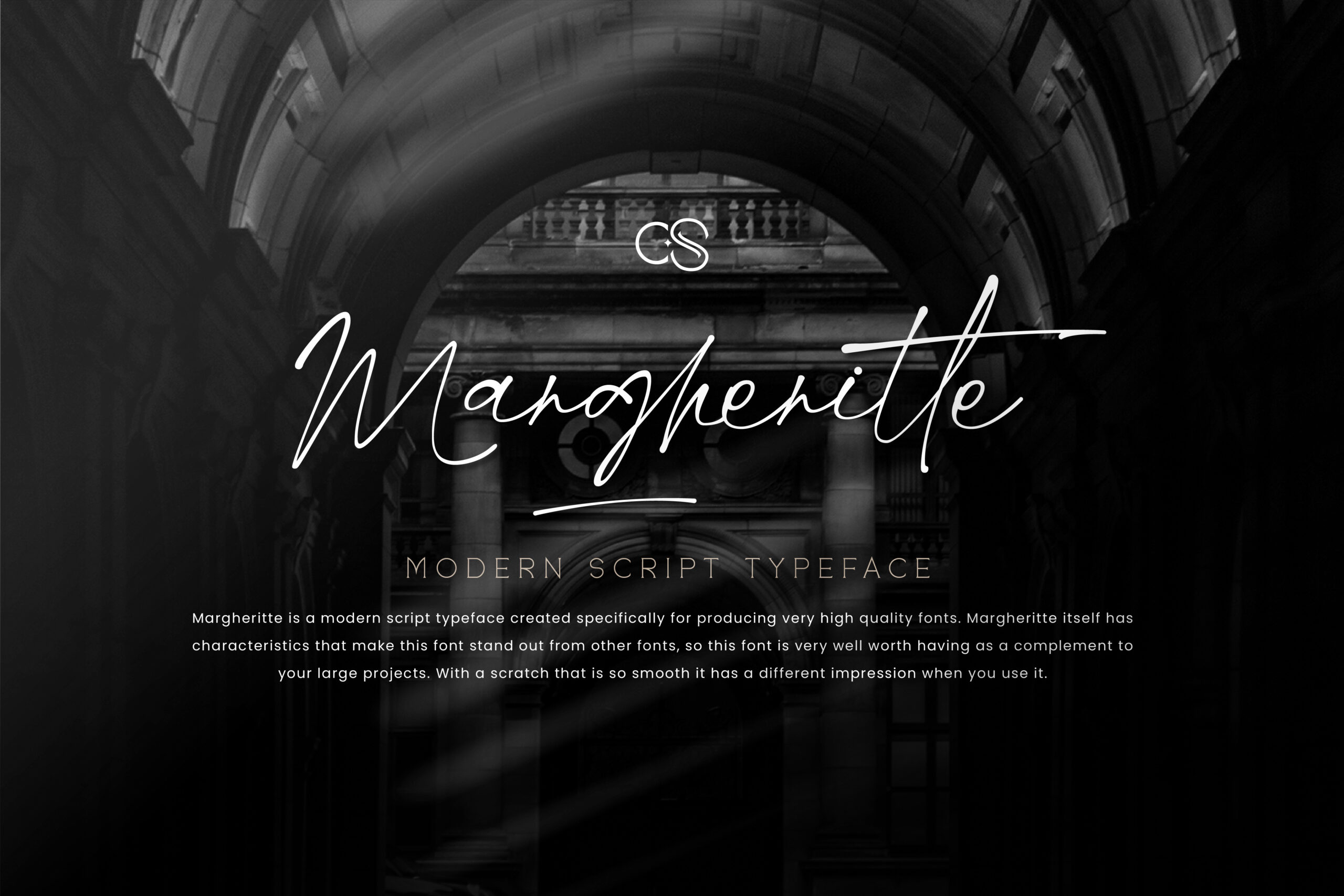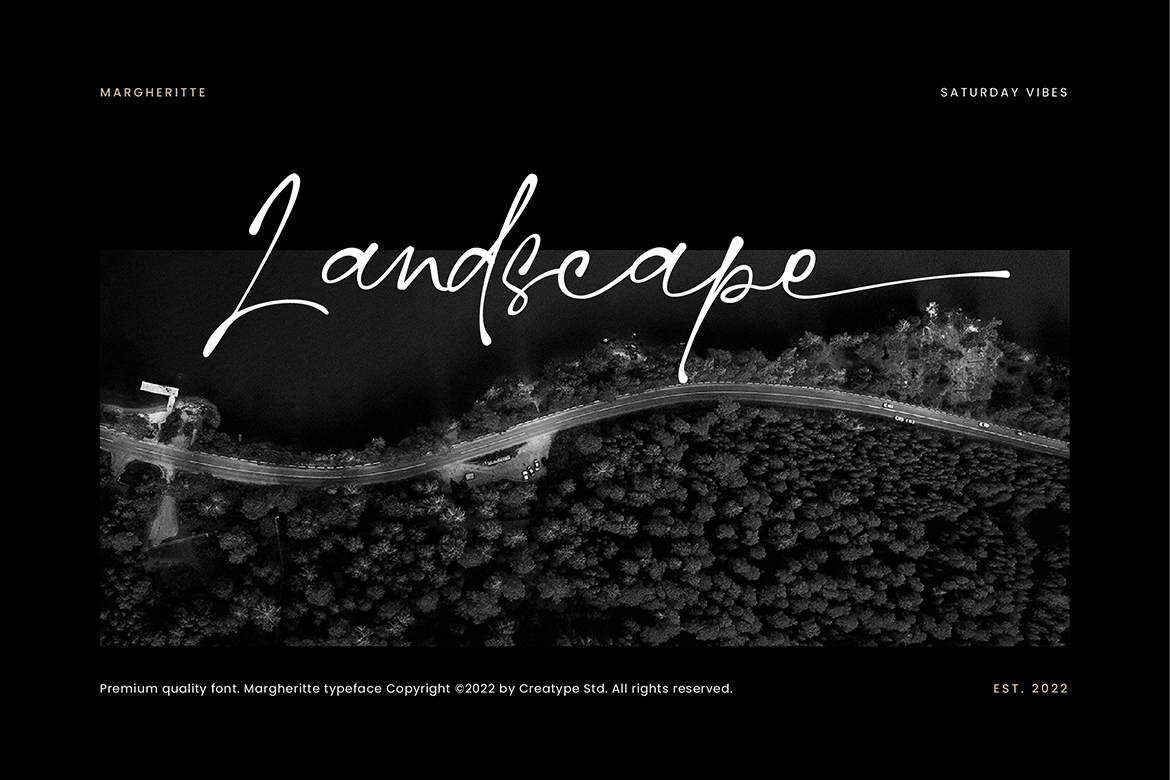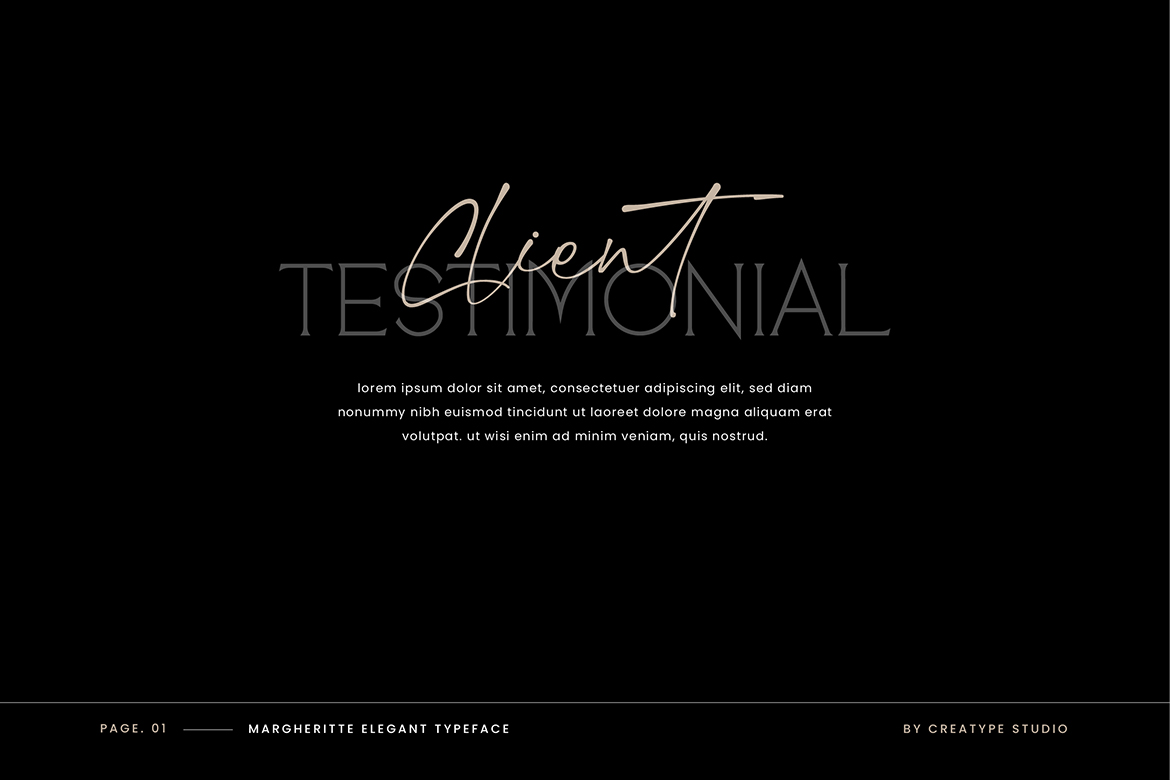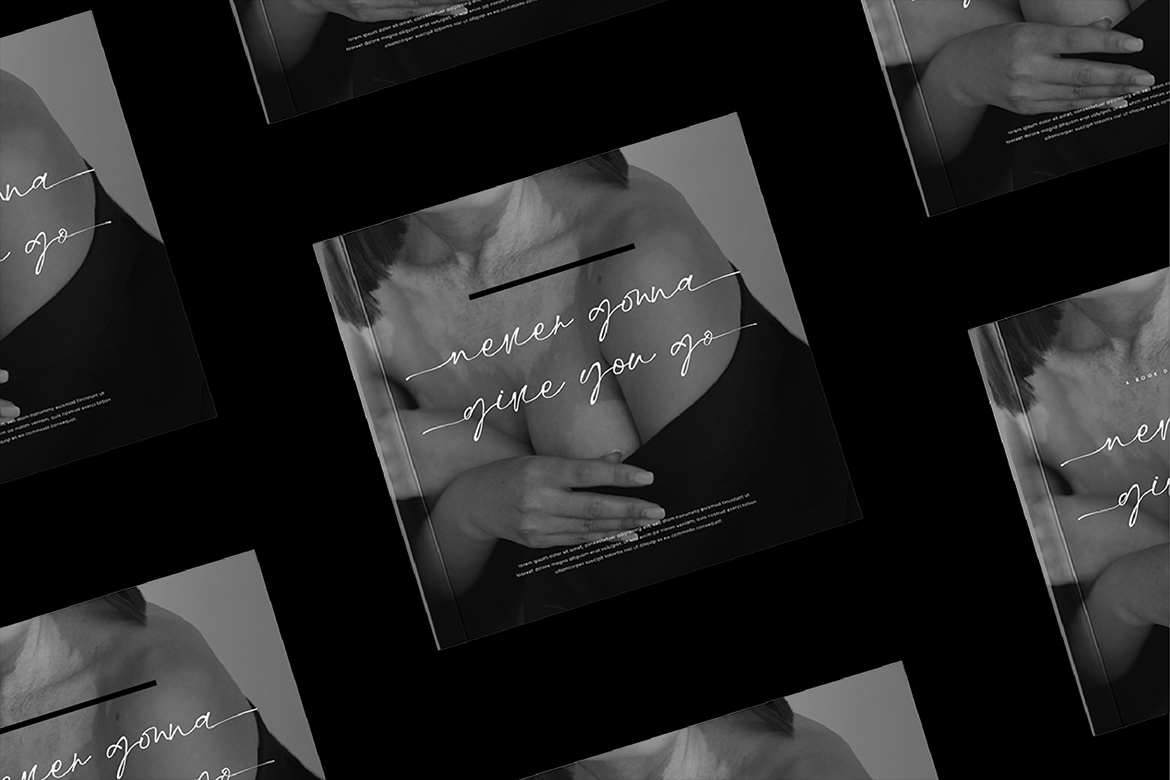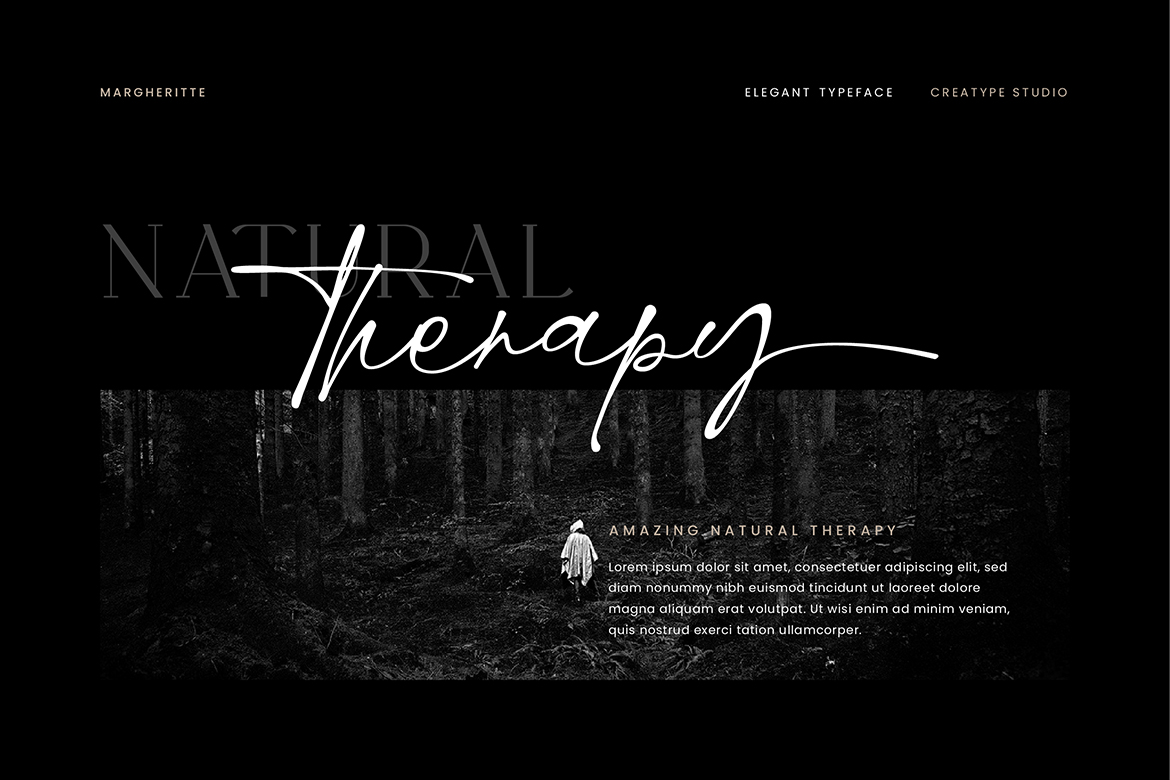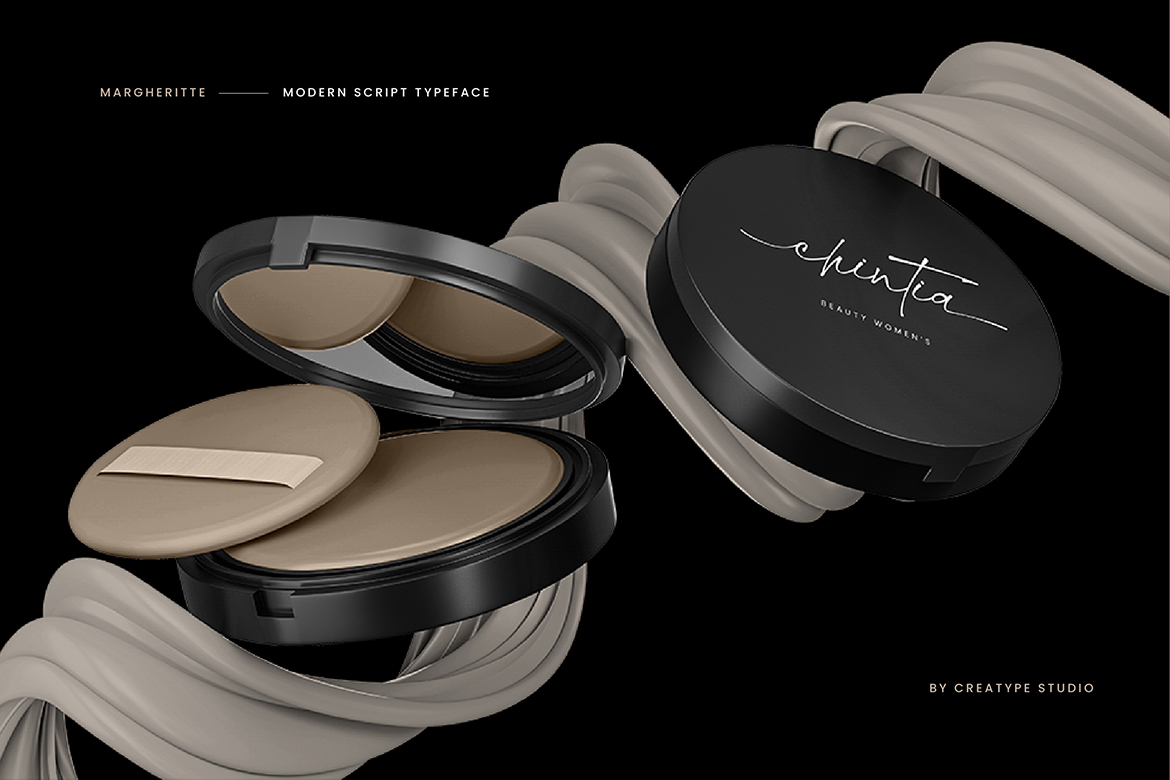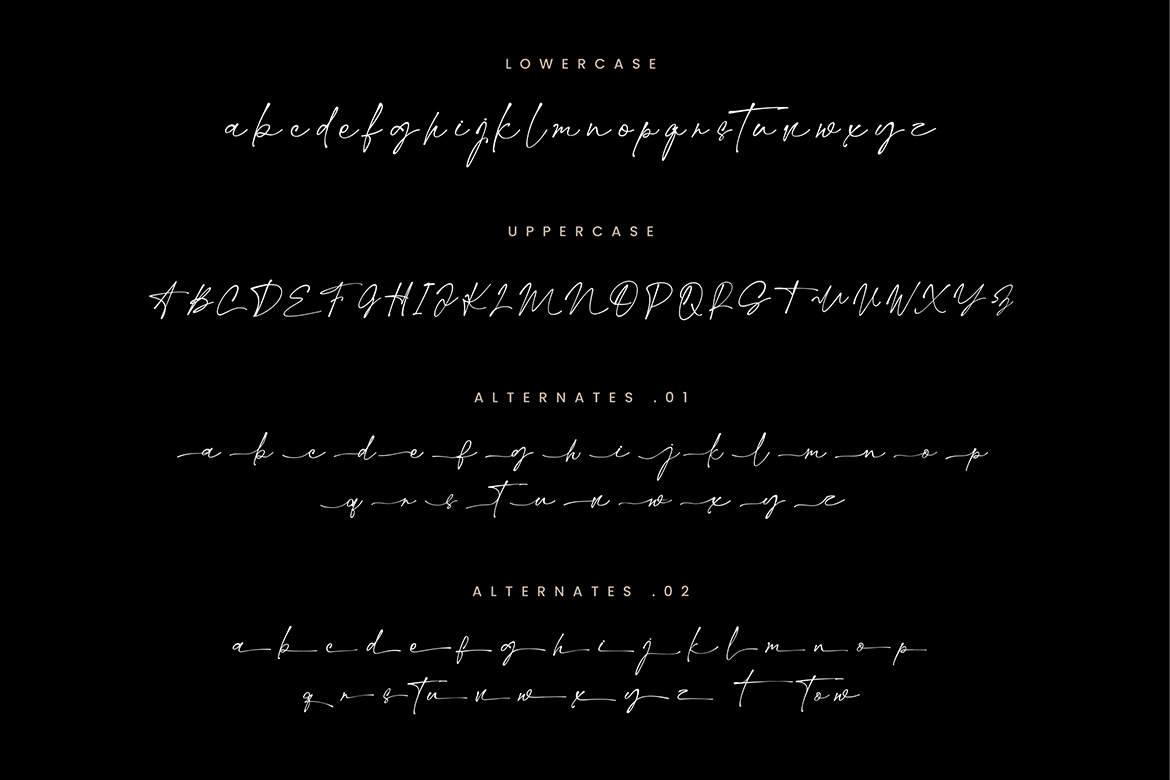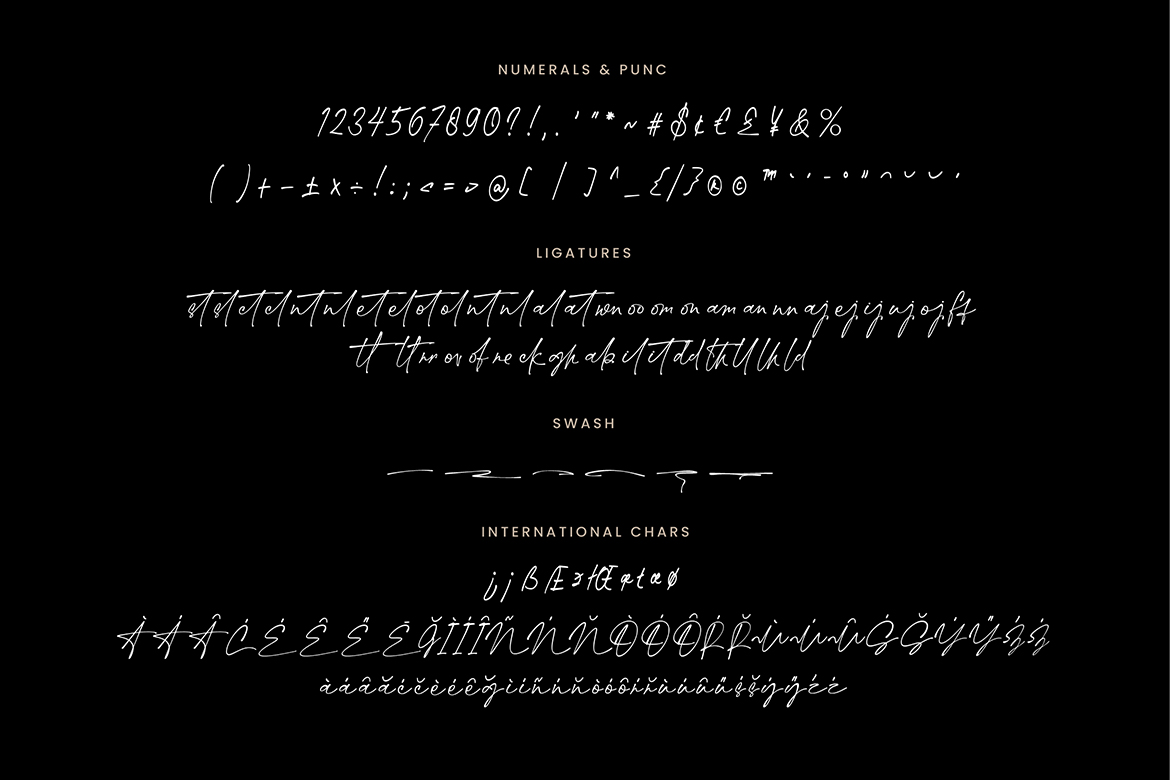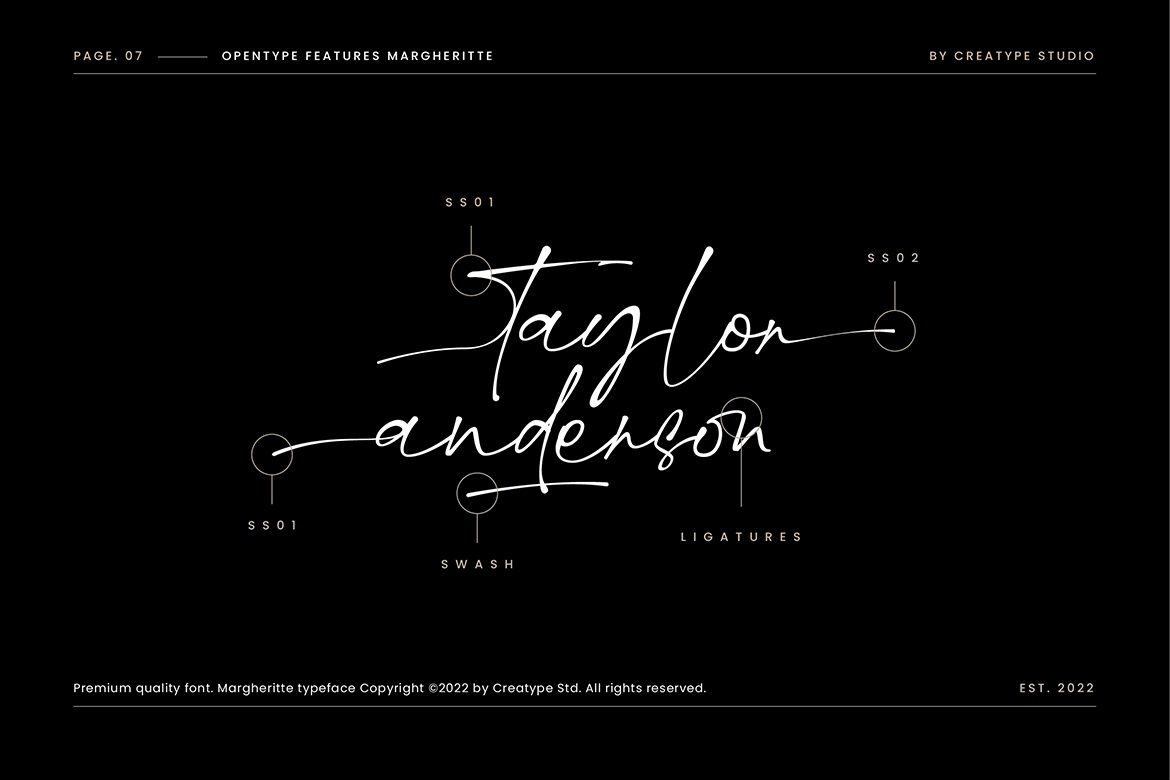
One of the most used typefaces is the handwriting style. Margheritte is a modern script with a handwriting style that has alluring looks. It will make every need looks perfect.
Margheritte is perfect for branding projects, logo, wedding designs, social media posts, advertisements, product packaging, product designs, label, photography, watermark, invitation, stationery and any projects that need handwriting taste.
• Ton of glyphs
• Ligature & Alternate
Margheritte Modern Script